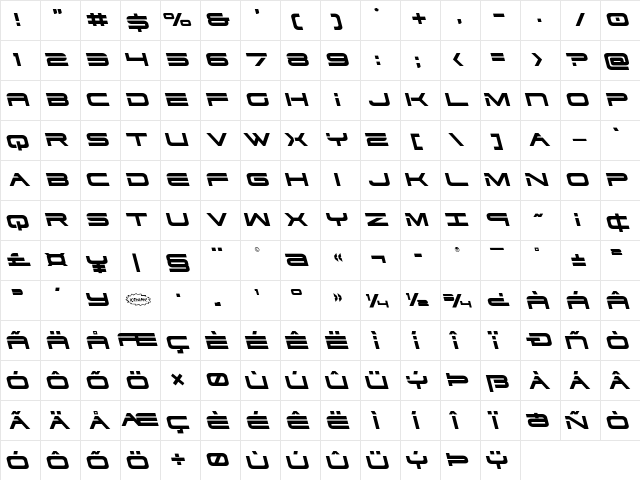
Dodger Leftalic Italic Font Preview
Dodger Leftalic Italic
Dodger Leftalic Italic Font Details
Design Context for Dodger Leftalic Typeface
Dodger Leftalic is a composed and adaptable typeface that performs quietly and consistently across a wide range of design contexts. The slanted form adds forward momentum and visual energy.
Pro Tip: Use Dodger Leftalic for emphasis, pull quotes, and subheadings where its slanted energy can add rhythm to the layout.